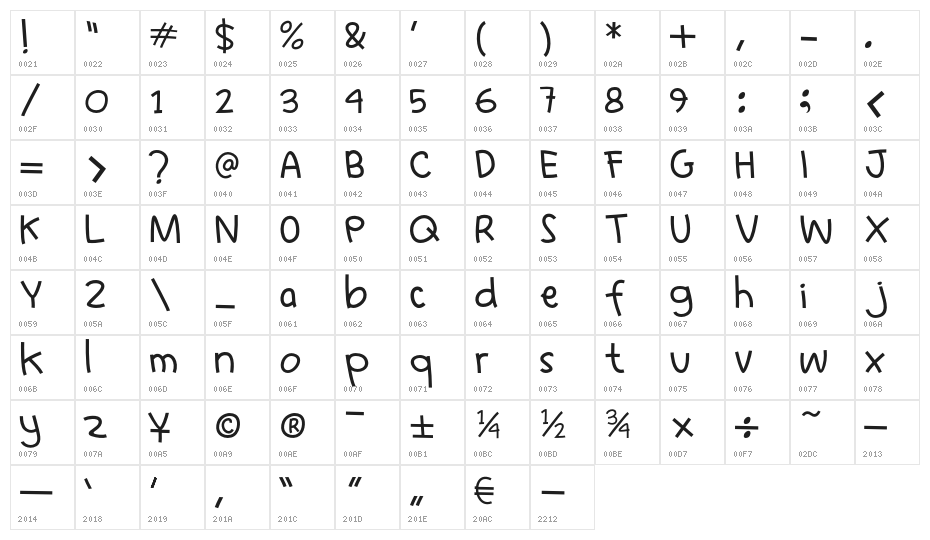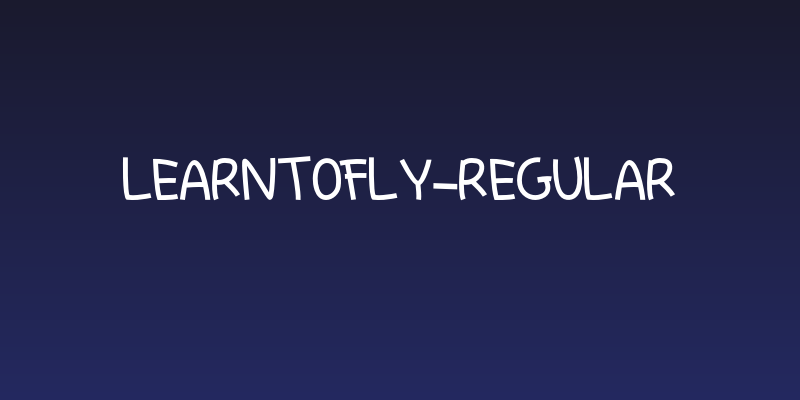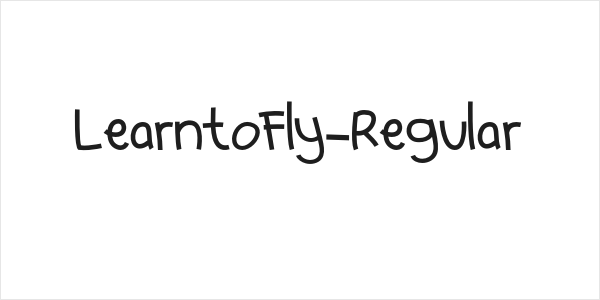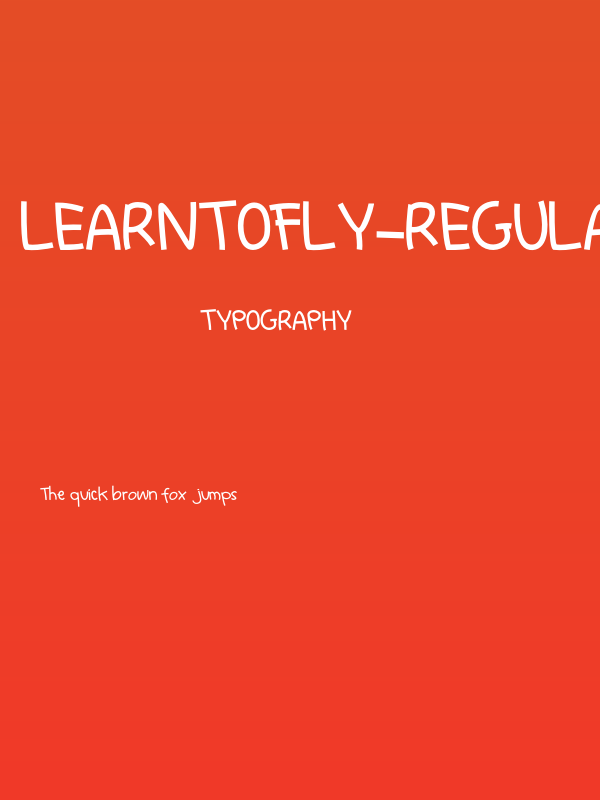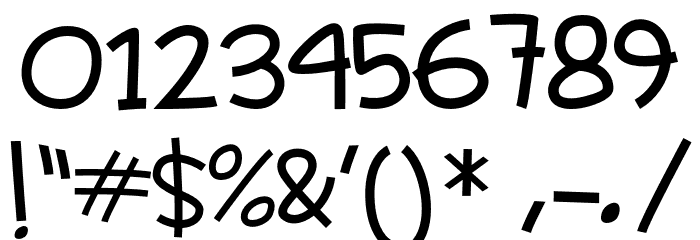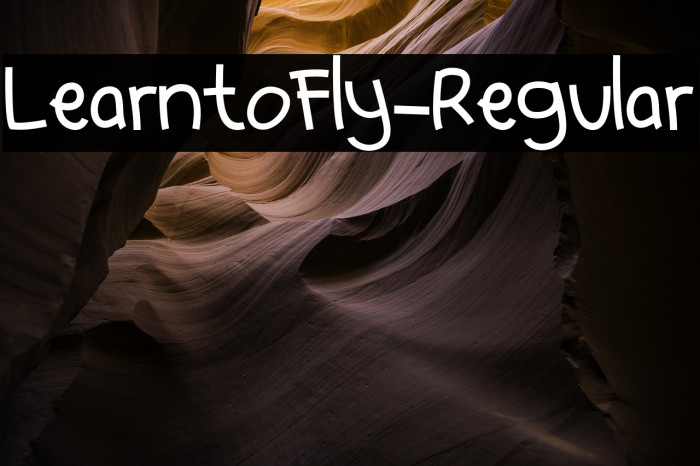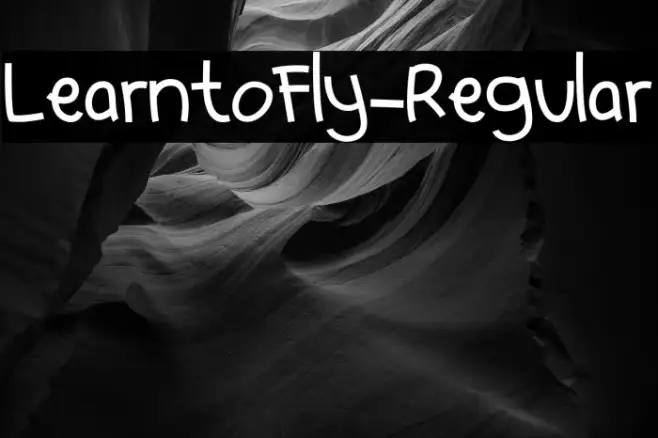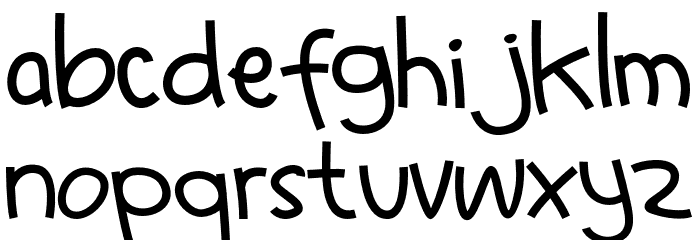
LearntoFly-Regular Font
✎ Comic
LearntoFly-Regular Description
This playful and whimsical font features a handwritten style with a casual and friendly appearance. The characters are slightly irregular, giving it a natural and organic feel. The strokes are smooth and rounded, contributing to its approachable and informal look. The uppercase and lowercase letters maintain a consistent style, with a slight tilt that adds to its dynamic nature. The numerals and special characters are designed to match the overall aesthetic, ensuring a cohesive look across all text elements. This font is perfect for projects that require a personal touch or a fun, lighthearted vibe.
| Proposed Projects | Ideal for children's books, greeting cards, casual invitations, and playful branding. |